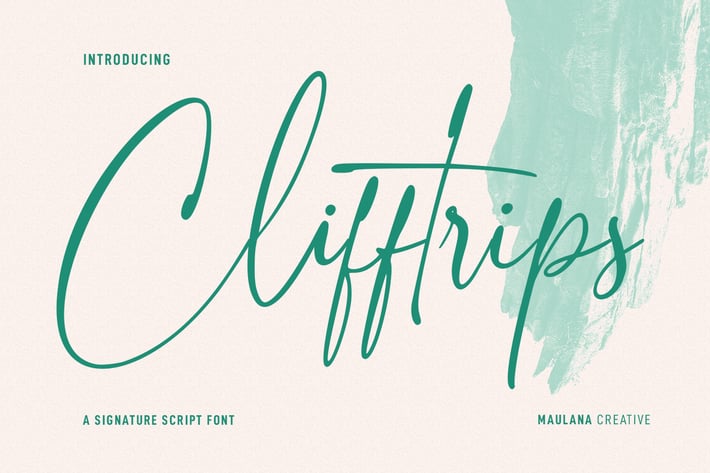
Clifftrips Signature Script Font
Clifftons is a casual signature script font. With ink-is light contrast stroke, fun character with a bit of ligatures and alternates. To give you an extra creative work. Clifftons font support multilingual more than 100+ language. This font is good for logo design, Social media, Movie Titles, Books Titles, a short text even a long text letter and good for your secondary text font with sans or serif. Make a stunning work with Clifftons font.